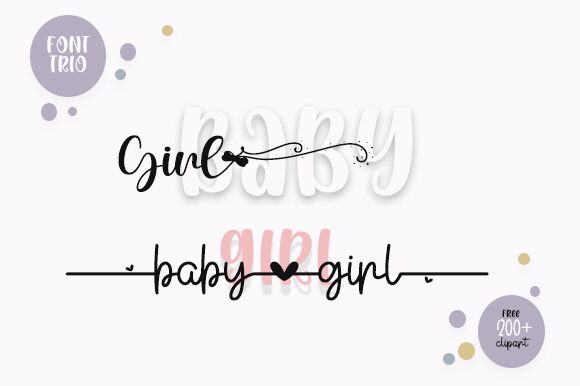
Introducing Baby Girl Display, a bold, narrow handwritten font designed by Nopianti. Ideal for projects that require an extra touch of cuteness, such as logo designs, branding material, and social media graphics.
Baby Girl Display
Nopianti